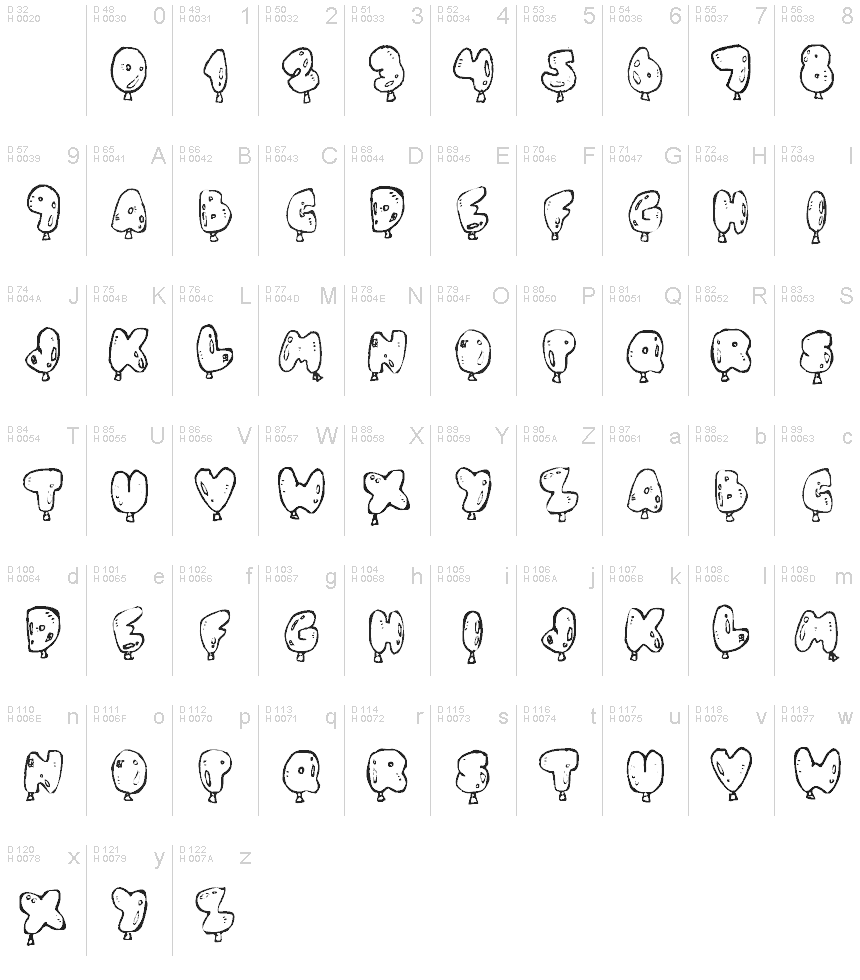
Oh Balloney
Oh Balloney is a delightfully whimsical display font designed by Buzzbum. With its bold, cartoon-like strokes and playful, free-flowing shapes, this font exudes a sense of joy and lightheartedness. The unique character forms, reminiscent of playful balloons, add a touch of quirky charm that would be well-suited for a variety of design applications, from children's book covers to party invitations and greeting cards.
The font's versatility allows it to seamlessly transition between playful and modern aesthetics, making it a valuable asset in the creative toolkit of designers seeking to infuse their projects with a dose of playful personality.